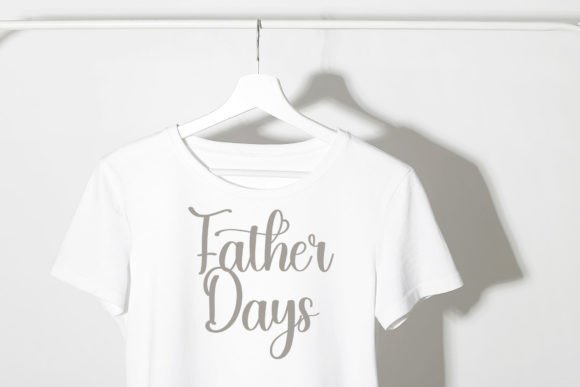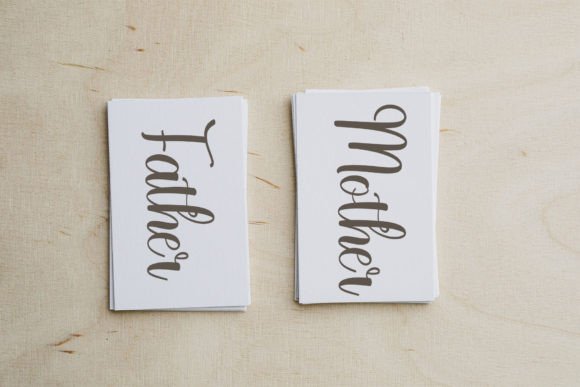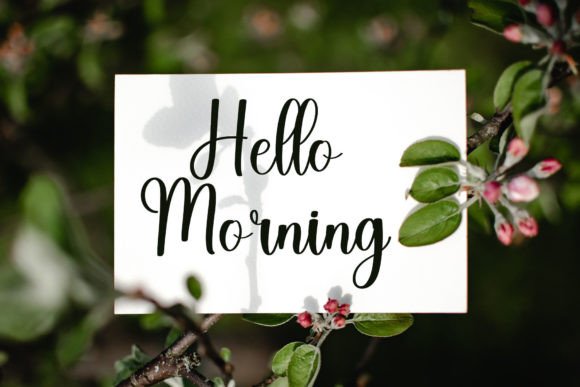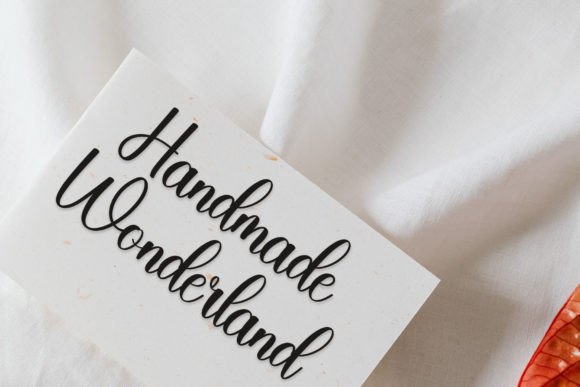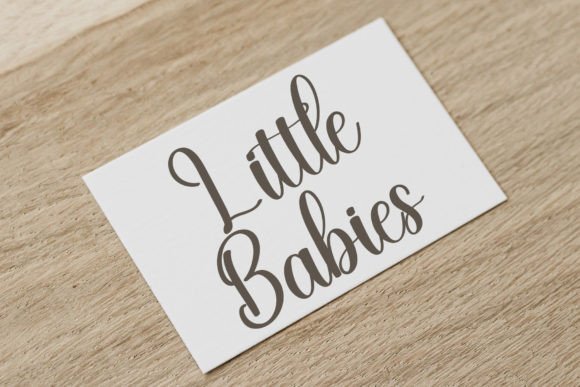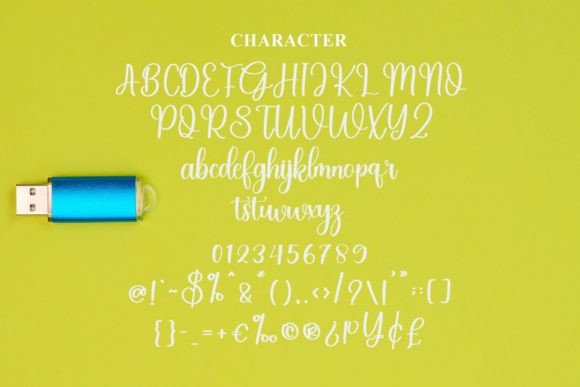
Introducing Greating Font: The Cute Handwritten Font with a Fun and Quirky Personality
Are you tired of using the same old fonts in your designs? Do you want to add a touch of uniqueness and whimsy to your projects? Look no further than Greating Font, a cute handwritten font with a fun and quirky personality. In this article, we’ll dive into the world of Greating Font and explore its features, benefits, and uses.
What is Greating Font?
Greating Font is a handwritten font designed to add a personal and charming touch to your designs. Its irregular and playful letterforms create a sense of whimsy and individuality, making it perfect for designs that require a touch of uniqueness. The font’s natural, handwritten style is reminiscent of a handwritten note or a personal letter, adding a warm and friendly feel to any project.
Features of Greating Font
So, what makes Greating Font so special? Here are some of its key features:
- Handwritten style: Greating Font has a natural, handwritten style that adds a charming and personal feel to any project.
- Irregular letterforms: The font’s irregular and playful letterforms create a sense of whimsy and individuality.
- Fun and quirky personality: Greating Font has a fun and quirky personality that is perfect for designs that require a touch of uniqueness.
- Easy to read: Despite its playful style, Greating Font is easy to read and understand, making it perfect for body text and headings.
Benefits of Using Greating Font
So, why should you use Greating Font in your designs? Here are some of its benefits:
- Adds a personal touch: Greating Font adds a personal and charming touch to any project, making it perfect for designs that require a human touch.
- Creates a sense of whimsy: The font’s irregular and playful letterforms create a sense of whimsy and individuality, making it perfect for designs that require a touch of uniqueness.
- Perfect for creative projects: Greating Font is perfect for creative projects, such as craft tutorials, DIY blogs, and artistic designs.
- Easy to pair with other fonts: Greating Font is easy to pair with other fonts, making it perfect for designs that require a combination of fonts.
Uses of Greating Font
So, what can you use Greating Font for? Here are some ideas:
- Craft tutorials: Greating Font is perfect for craft tutorials, such as knitting patterns, sewing tutorials, and paper crafting guides.
- DIY blogs: The font is perfect for DIY blogs, such as home decor tutorials, woodworking guides, and gardening tips.
- Artistic designs: Greating Font is perfect for artistic designs, such as illustrations, paintings, and sculptures.
- Social media graphics: The font is perfect for social media graphics, such as Facebook posts, Instagram stories, and Twitter headers.
Tips for Using Greating Font
Here are some tips for using Greating Font:
- Use it for headings and titles: Greating Font is perfect for headings and titles, adding a touch of whimsy and individuality to your designs.
- Pair it with other fonts: The font is easy to pair with other fonts, making it perfect for designs that require a combination of fonts.
- Experiment with colors: Greating Font looks great in a variety of colors, so don’t be afraid to experiment and find the perfect color for your design.
- Use it for body text: Despite its playful style, Greating Font is easy to read and understand, making it perfect for body text.
In conclusion, Greating Font is a cute handwritten font with a fun and quirky personality. Its irregular and playful letterforms create a sense of whimsy and individuality, making it perfect for designs that require a touch of uniqueness. With its natural, handwritten style and easy-to-read design, Greating Font is perfect for a variety of projects, from craft tutorials to artistic designs. So why not give Greating Font a try and add a touch of whimsy to your designs?